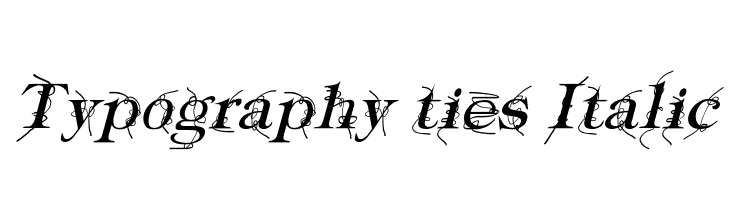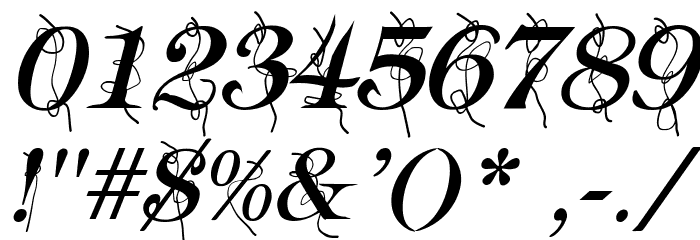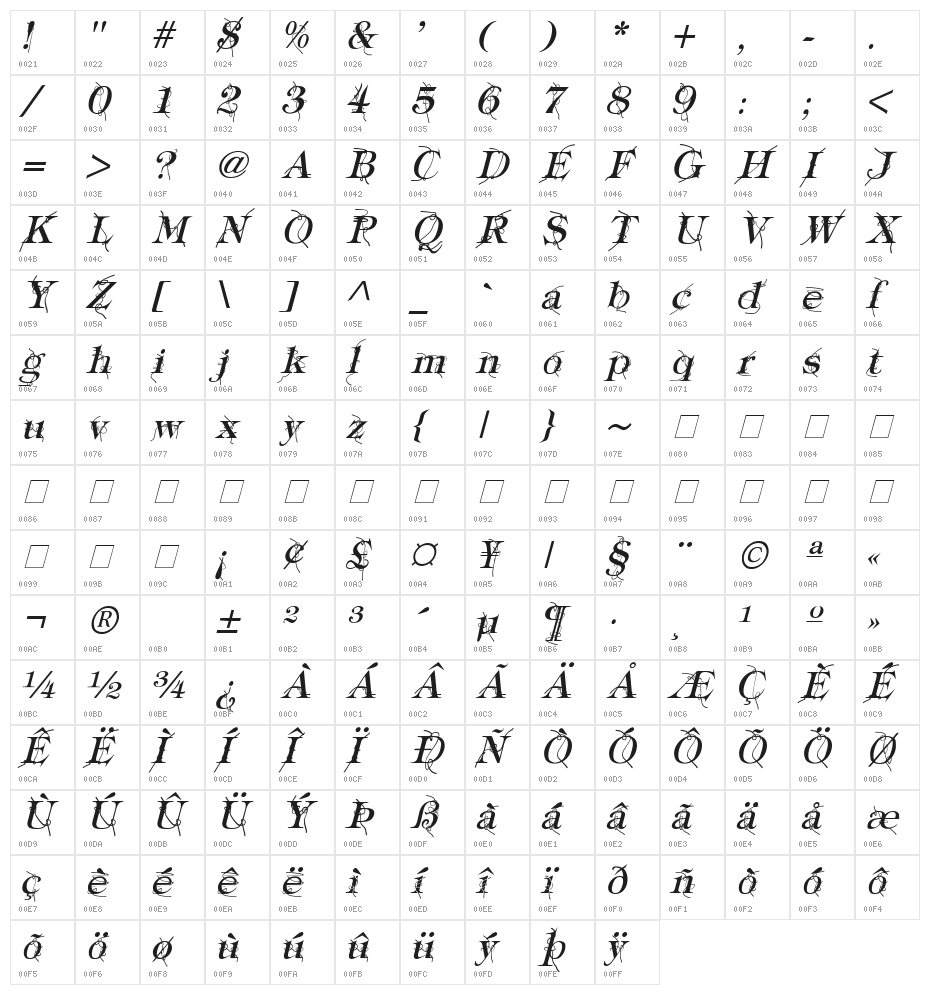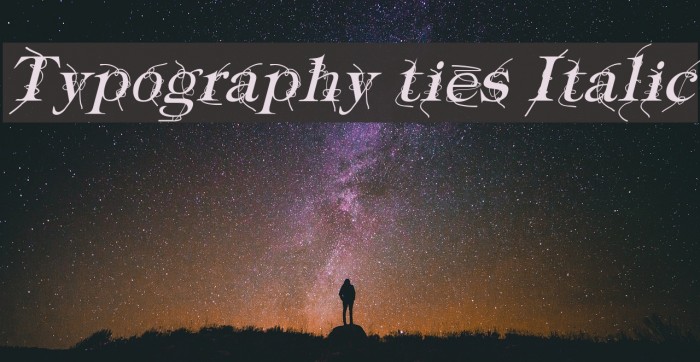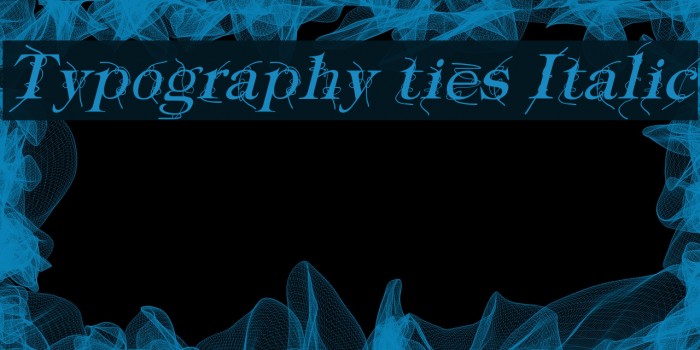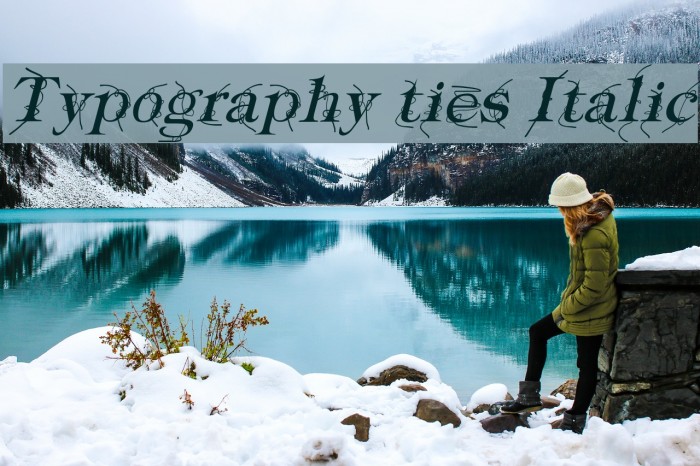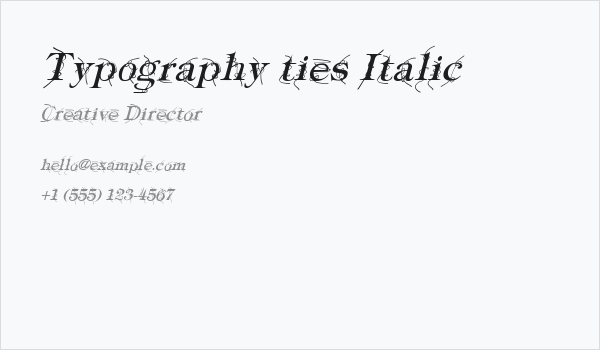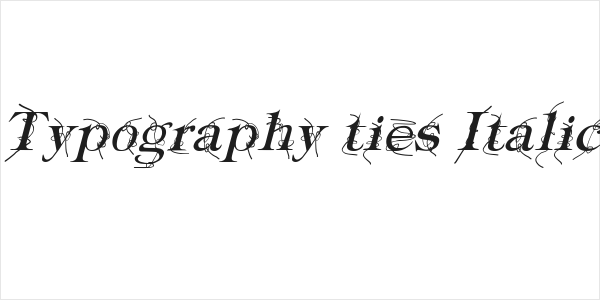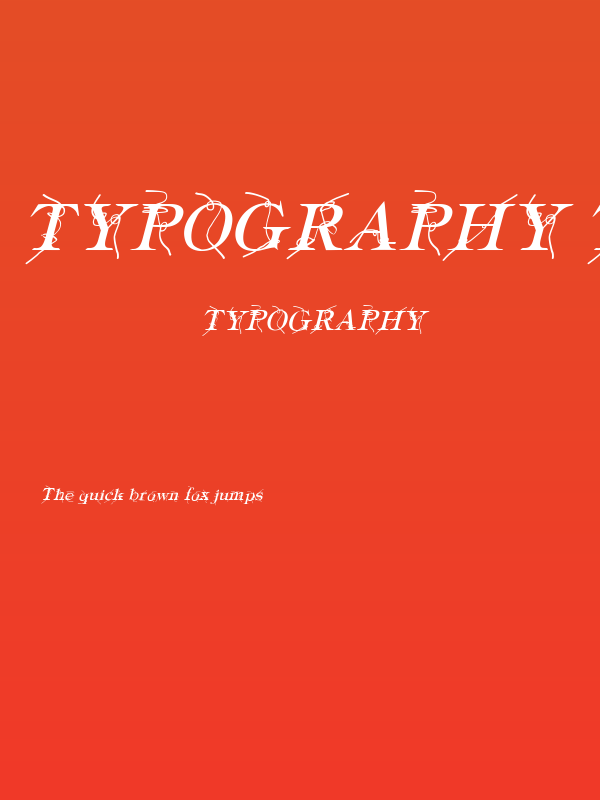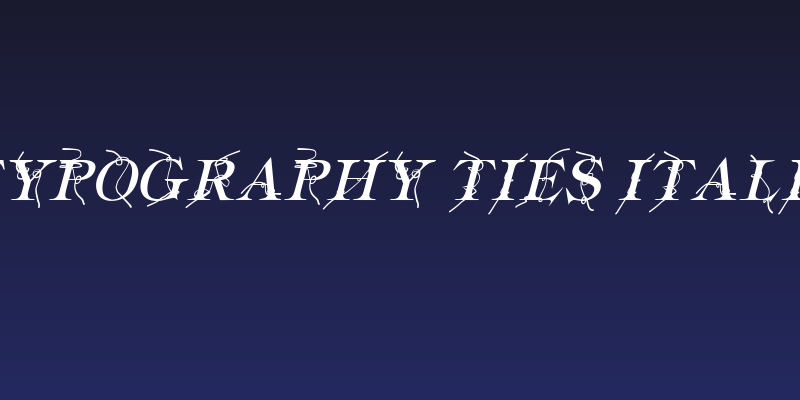
Typography ties Italic Font
Typography ties Italic Description
This font features an intricate and decorative style, characterized by its intertwining vine-like embellishments that wrap around each letter. The italicized form adds a sense of elegance and fluidity, while the sharp serifs provide a classic touch. The uppercase and lowercase letters maintain a consistent design, with the embellishments creating a sense of movement and organic growth. The numerals and special characters are equally adorned, ensuring a cohesive look across all glyphs. This font is ideal for projects that require a touch of nature-inspired artistry and sophistication.